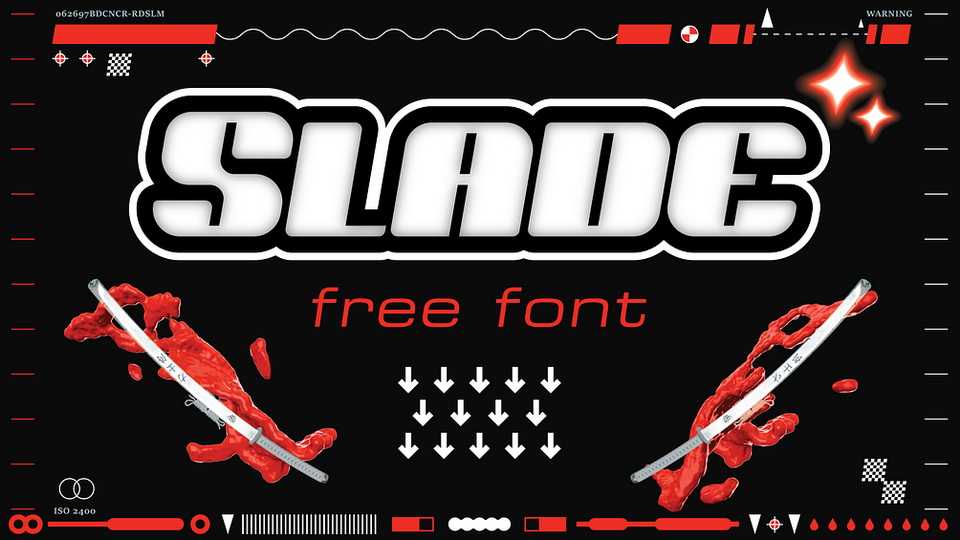
Download Slade font, a bold and distinctive slanted typeface designed especially for display purposes. Slade can be used in posters, headlines, visual identities, and everything needs to stand out.